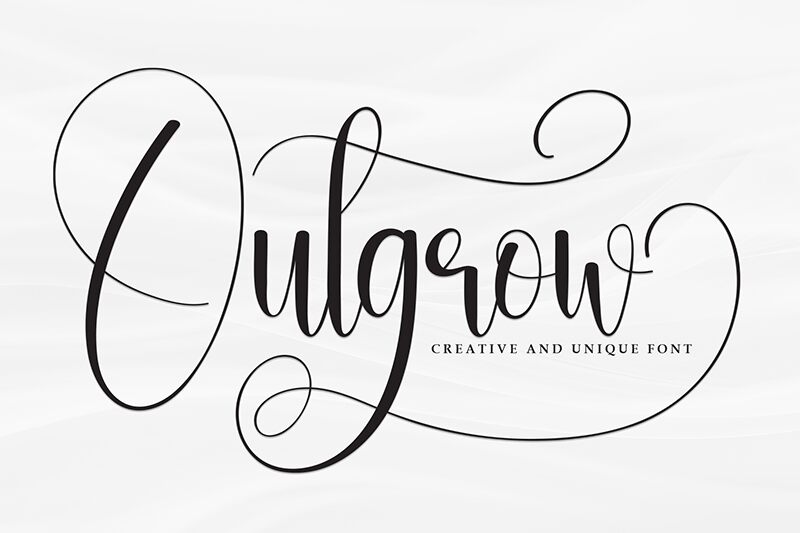
Outgrow
Outgrow font designed by Andi Moz is a light calligraphy font that blends elegance, sophistication, and ornamental style into a timeless combination. It uses a flowing thin structure to create a feminine look which makes it perfect for contemporary applications like branding and invitations.
This free calligraphy font works particularly well in logotype projects for fashion, cosmetics, beauty products, packaging, blogs, magazines or books that cater mainly to female audiences. Use it in greeting cards or special occasion invitation envelopes like weddings after adding the proper customization. The lovely letters can also make posters stand out when instantly catching your reader’s eye from across the room!